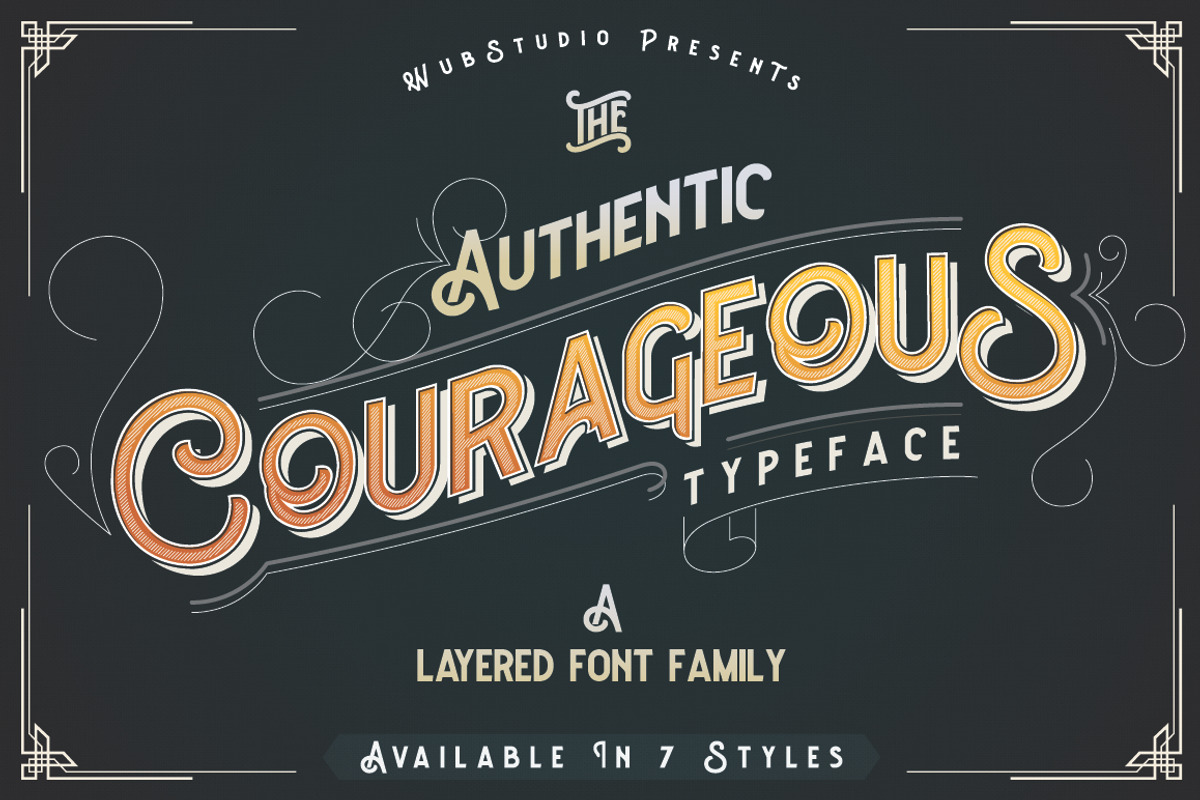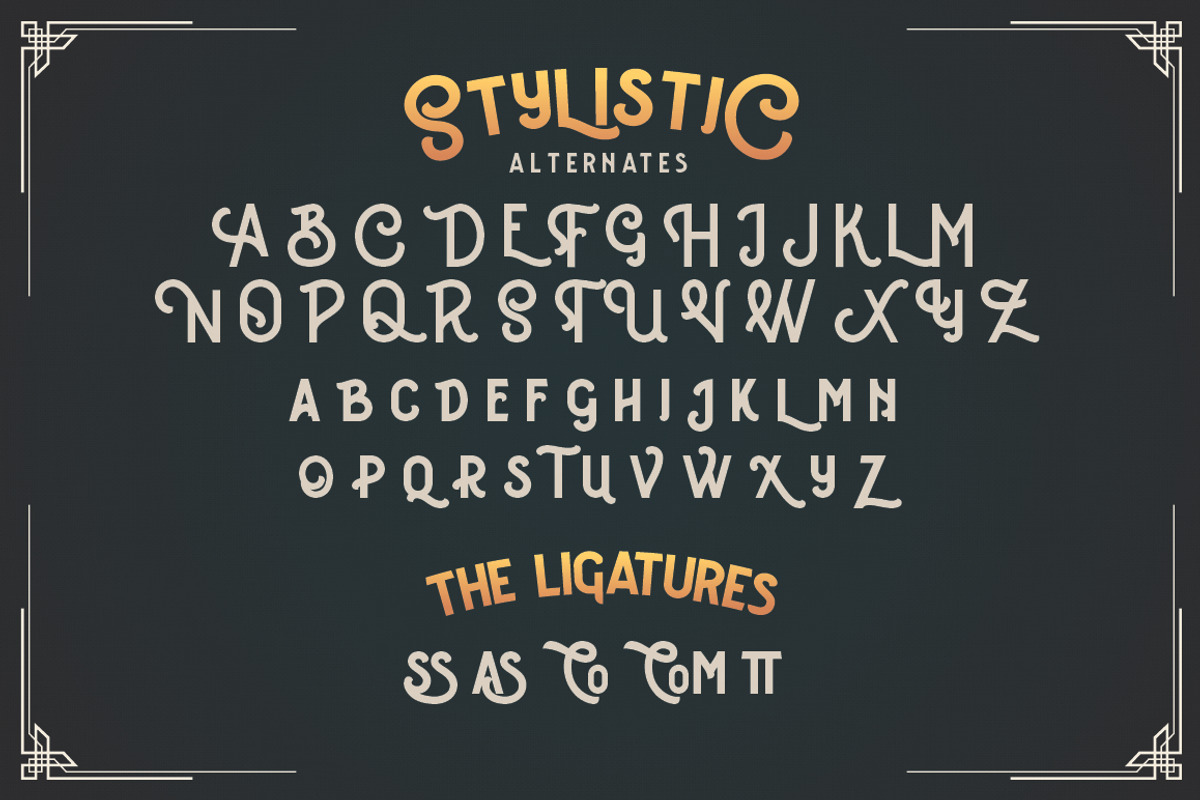
Courageous Typeface
Courageous Typeface by wubstudio is a font selected for branding, posters, packaging, typography.
Why Courageous Typeface is worth a look
Courageous Typeface by wubstudio fits naturally into Branding, posters, packaging, typography.